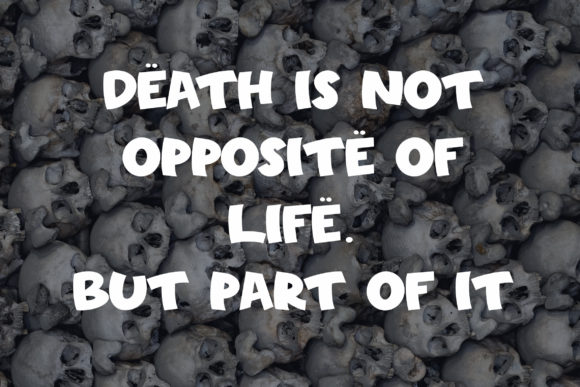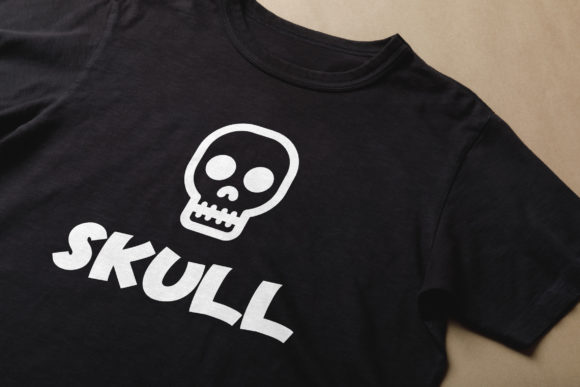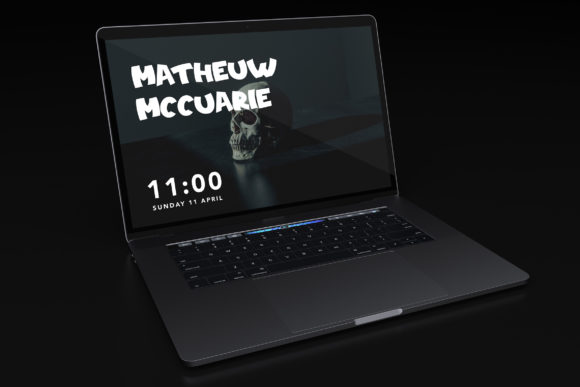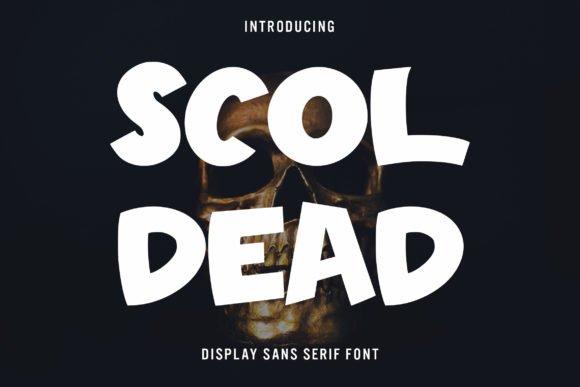
Introduction to Scoldead Font
Scoldead is a bold and chunky lettered display font.
It will look stunning on any poster flyer or print Use this font for your designs and explore its endless possibilities.
Key Features of Scoldead Font
Why Choose Scoldead Font?
Scoldead Font offers exceptional quality and versatility, making it a valuable addition to your design toolkit. Whether you’re creating for personal projects or commercial use, Scoldead Font delivers professional results.